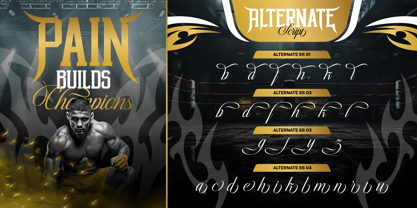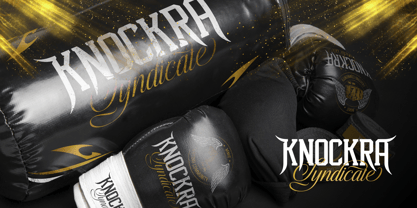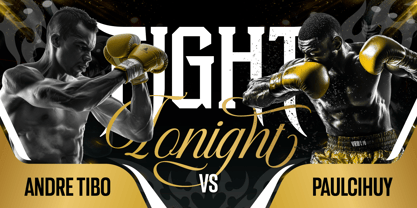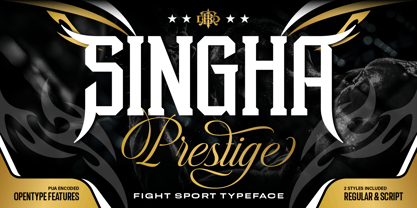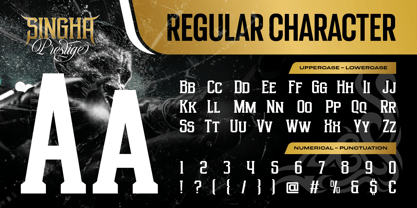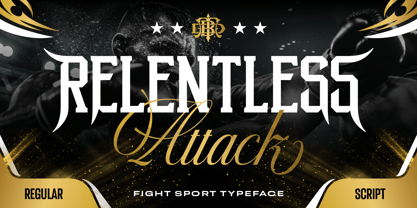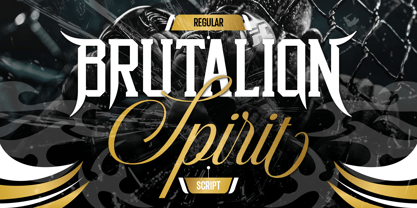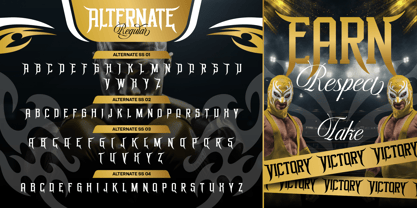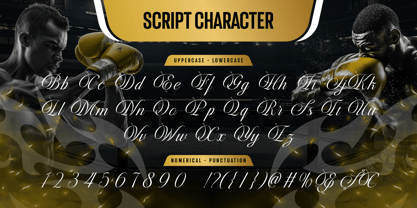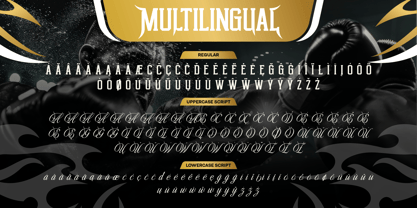
Singha Prestige
by Burntilldead
The Singha Prestige Font Family was designed by Eric Kurniawan and published by Burntilldead. Singha Prestige contains 2 styles and family package options. More about this family
Under the bright arena lights, the crowd roars as two fighters step into the ring. Every move is sharp, every moment intense—and every detail matters. That’s the energy behind Singha Prestige, a powerful typeface inspired by the bold spirit of combat sports and the elegance of victory. Singha Prestige is a striking combination of strength and sophistication. It comes with two styles: a bold display serif that delivers impact, and a smooth script style that adds a touch of prestige and elegance. This contrast makes it perfect for designs that need both power and refinement in one visual identity. Designed with sharp edges, athletic proportions, and dynamic character forms, this font captures the essence of fight sports like boxing, MMA, wrestling, and more. Whether you're creating posters, branding, or merchandise, Singha Prestige will make your design stand out like a champion. Perfect For: Fight sport posters & event promotions, Gym & fitness branding, Esports & gaming visuals, Apparel design (t-shirts, merch), Logo design with bold character, Social media graphics & ads Features: A - Z set (Uppercase & Lowercase), Number, Punctuation, Alternates, Multilingual
Designers: Eric Kurniawan
Foundry: Burntilldead